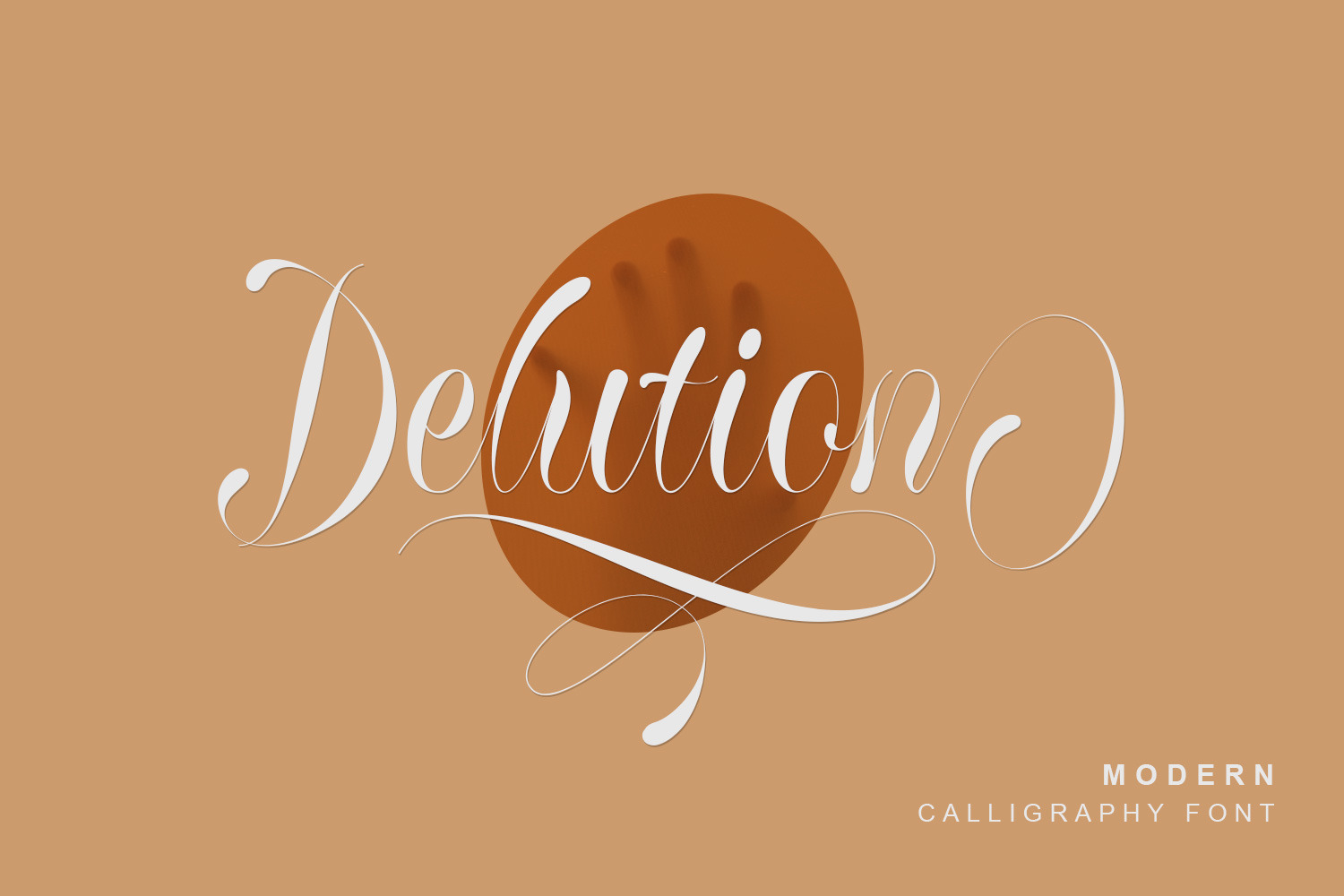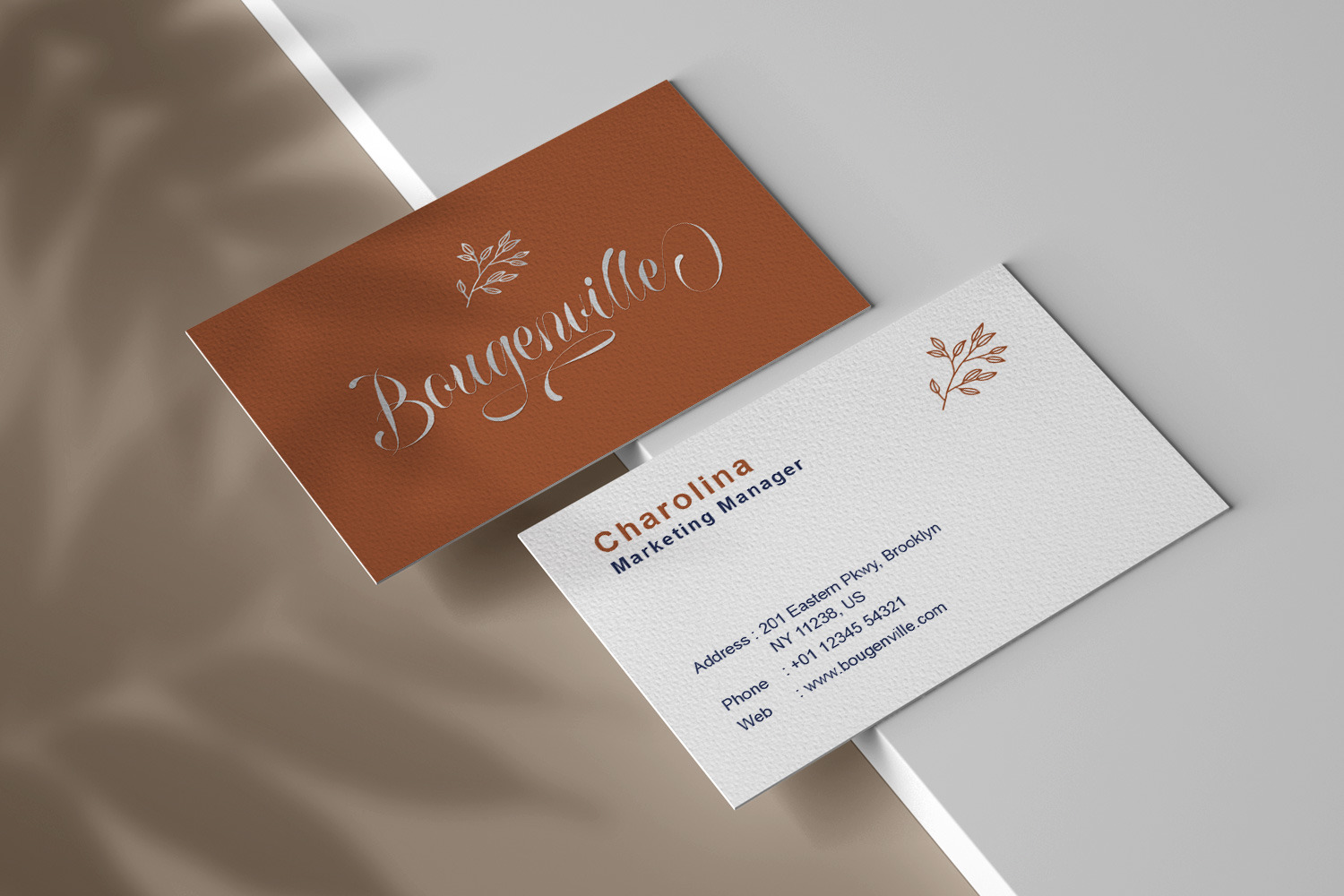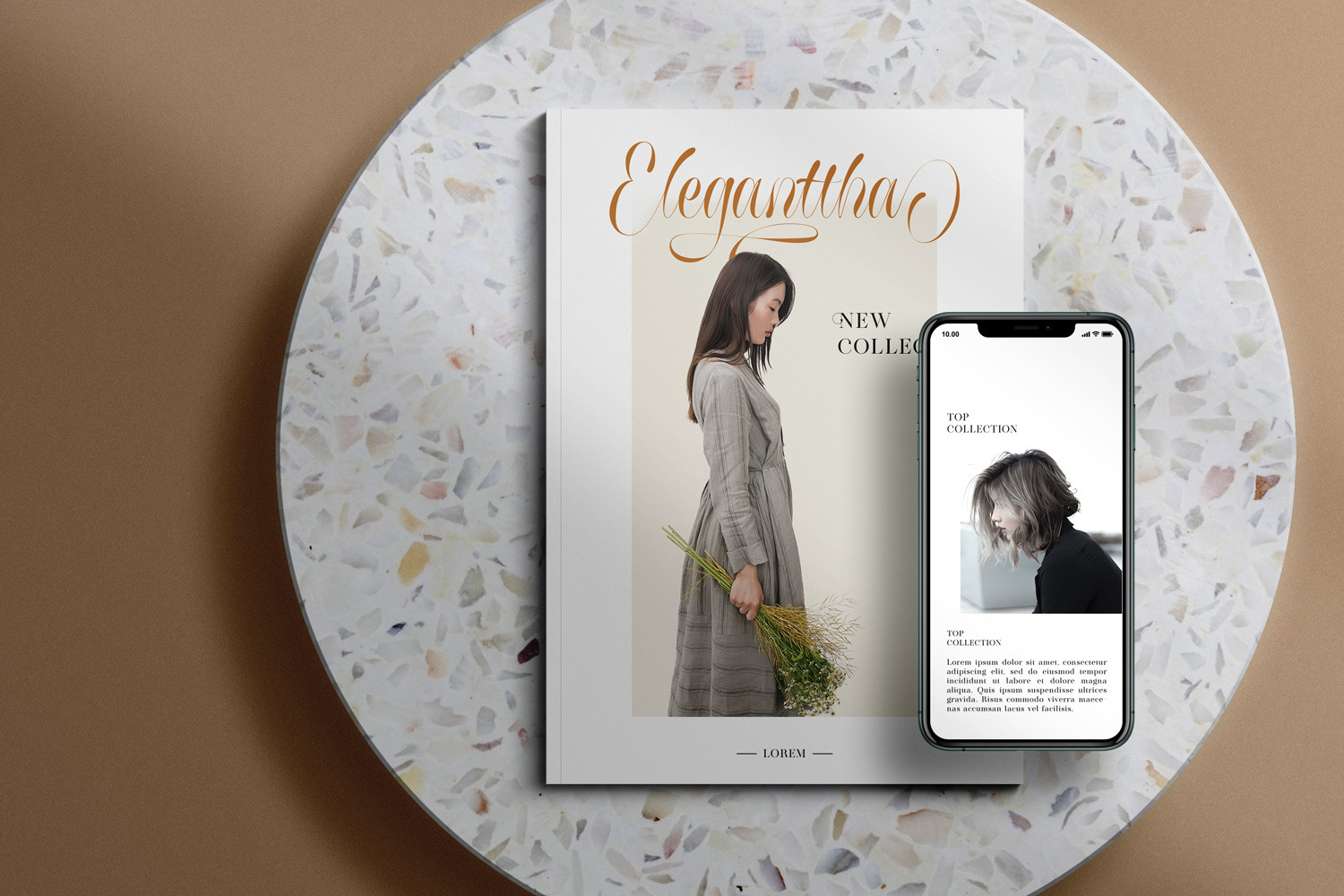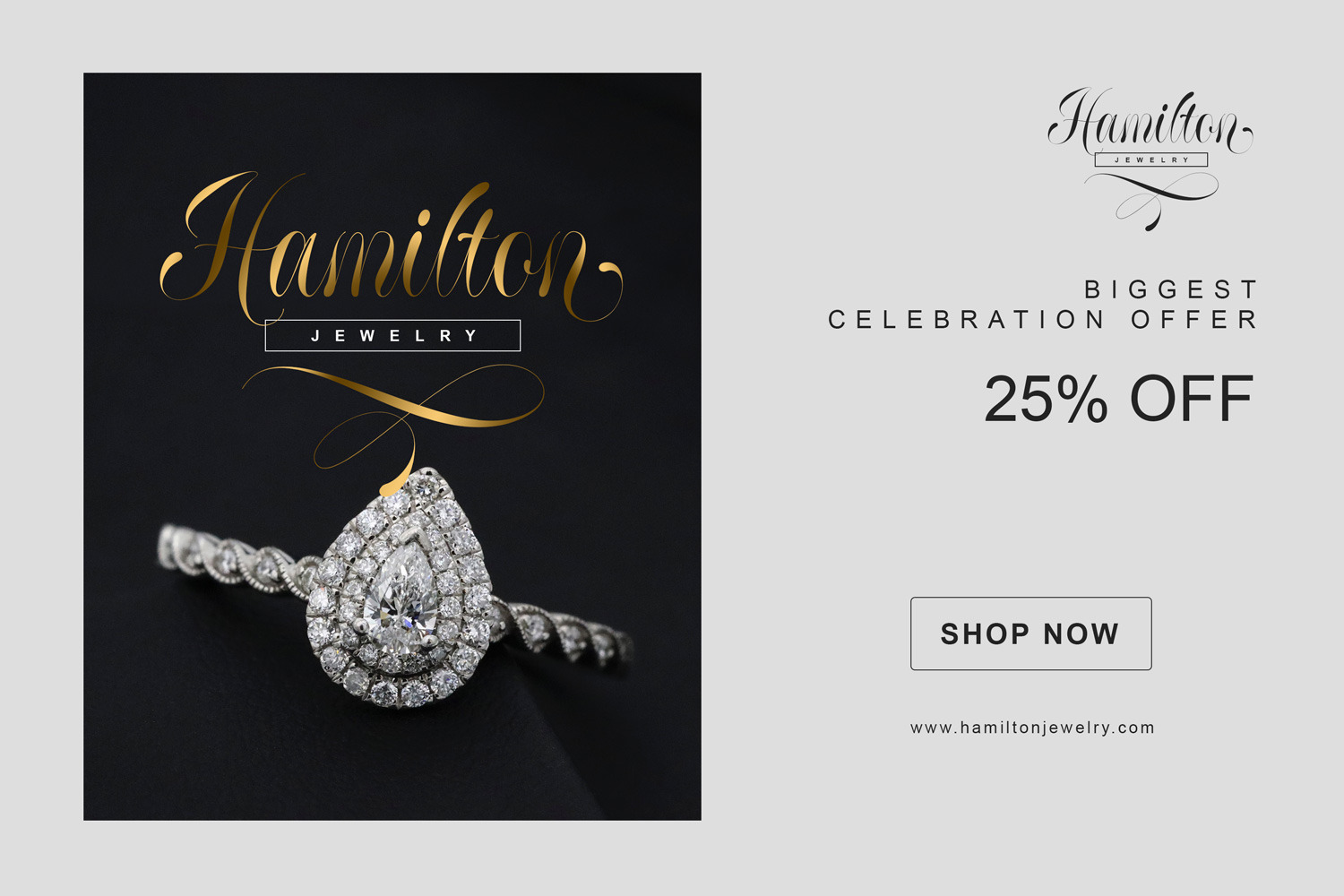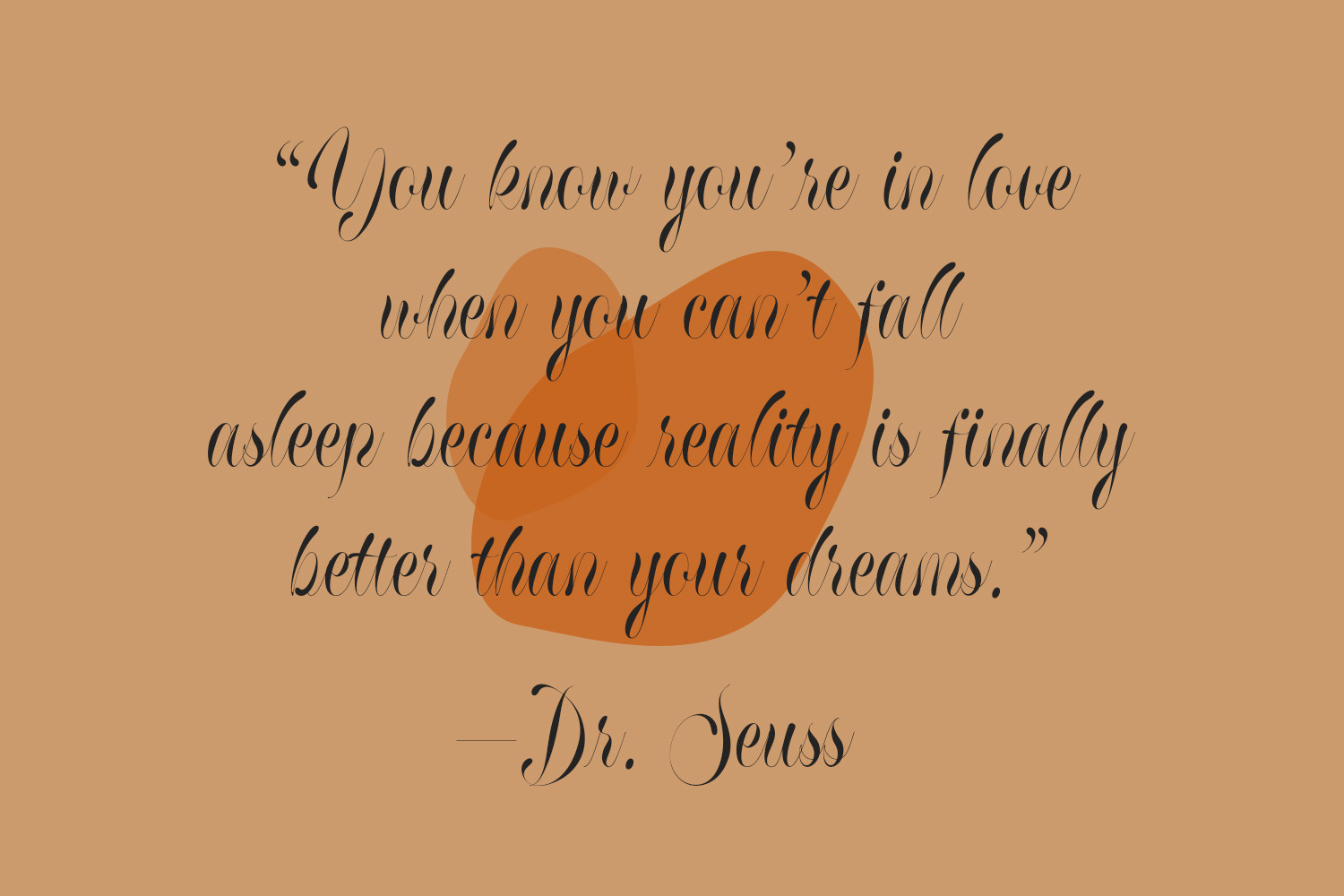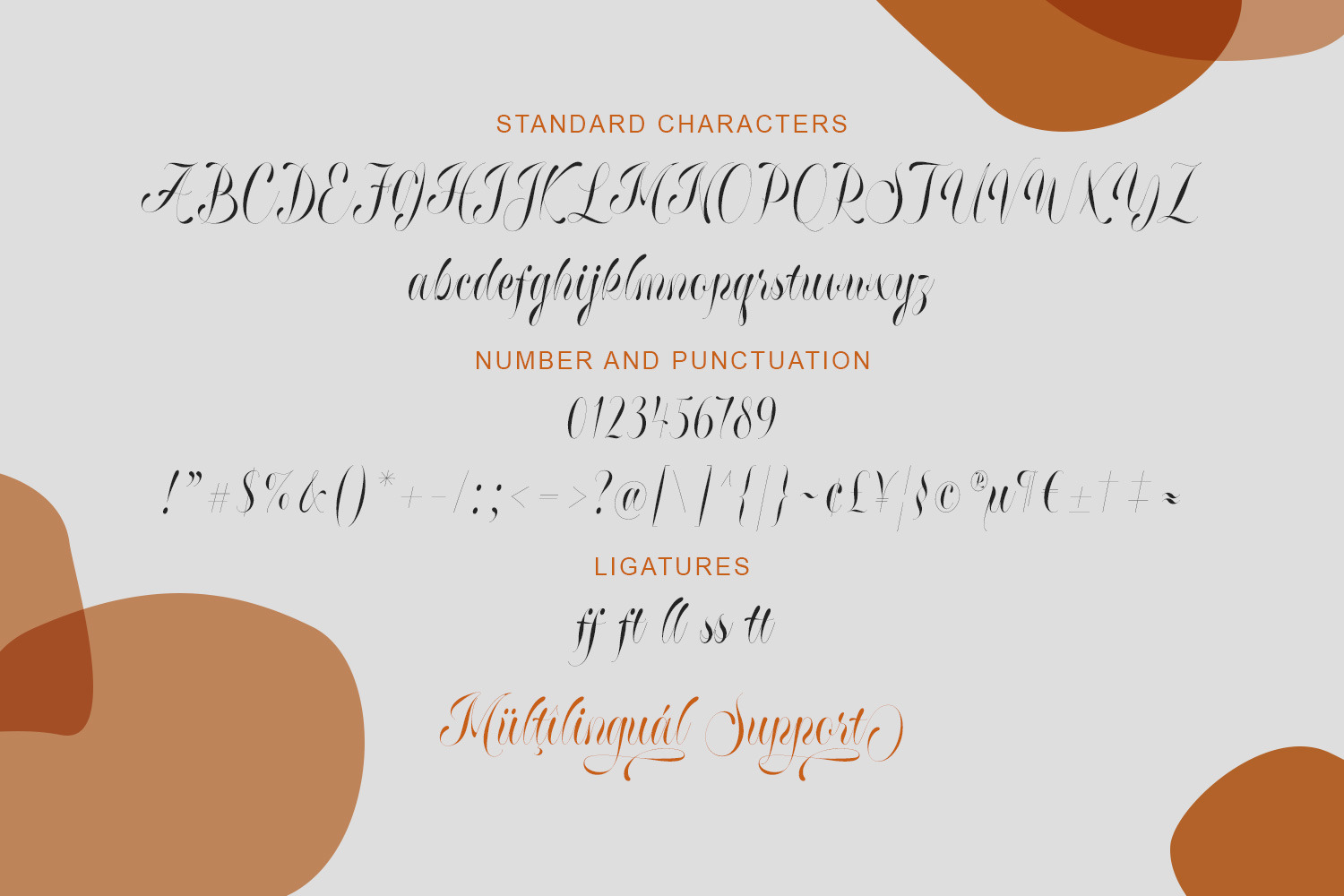
Delution Font
Delution is a beautiful modern calligraphy font. Delution Font is perfect for many different project such as logos & branding, invitation, stationery, wedding designs, social media posts, advertisements, product packaging, product designs, label, photography, watermark, special events or anything.
FEATURES
-Ligatures
-Swash
-Alternate
-Uppercase and Lowercase letters
-Numbering and Punctuations
-Also Multilingual Support